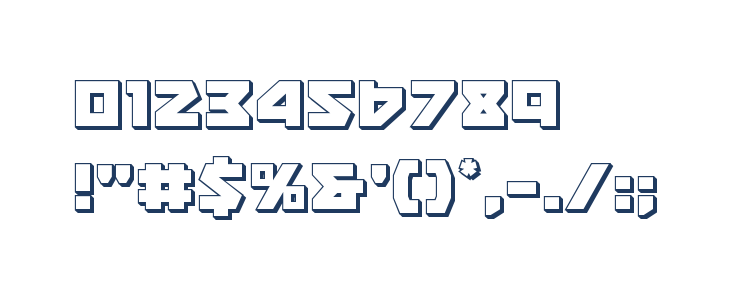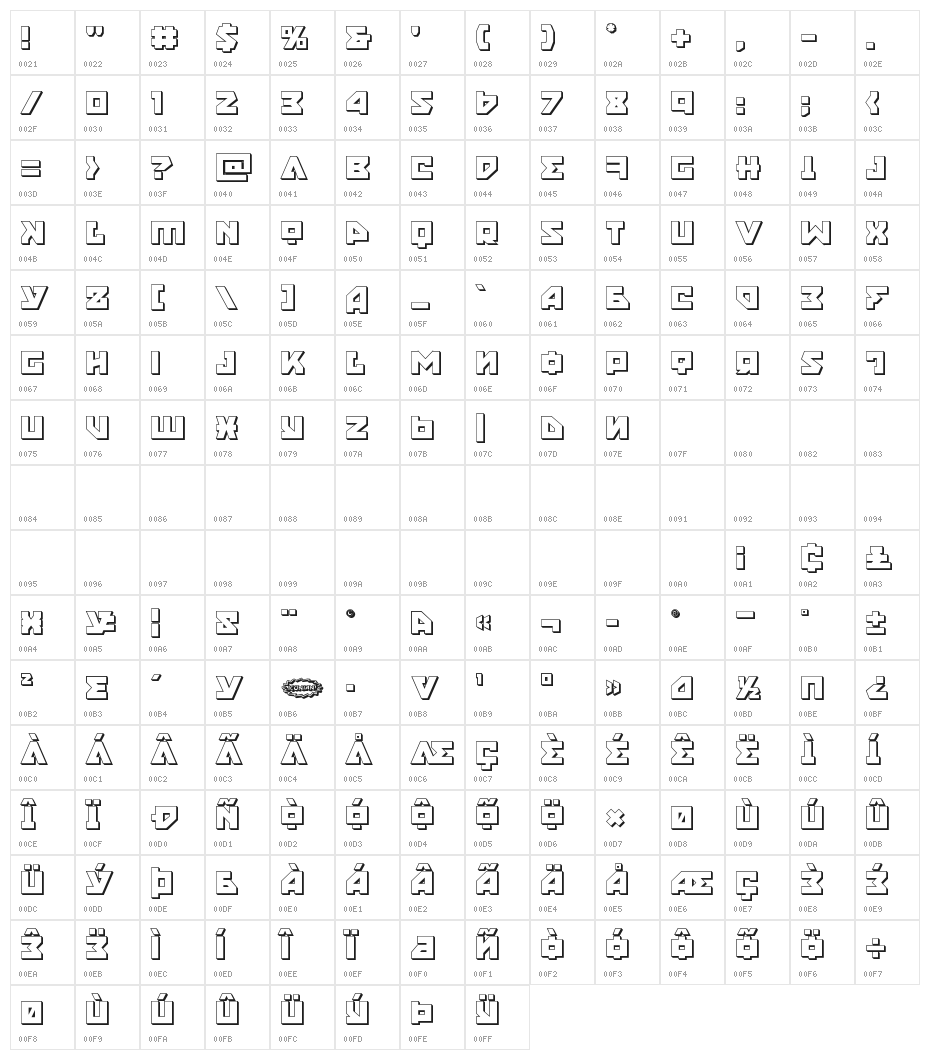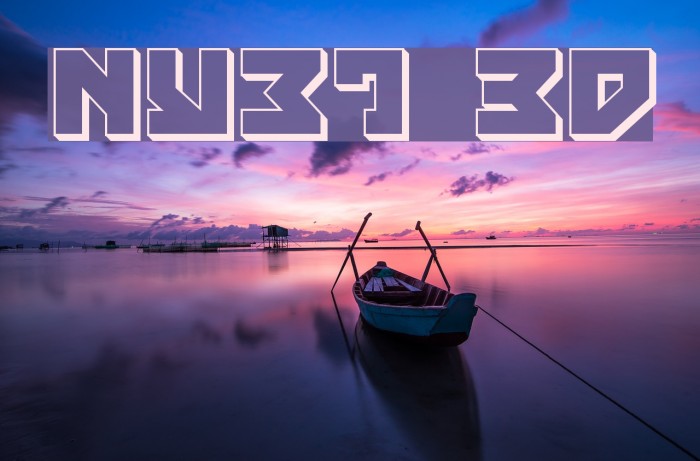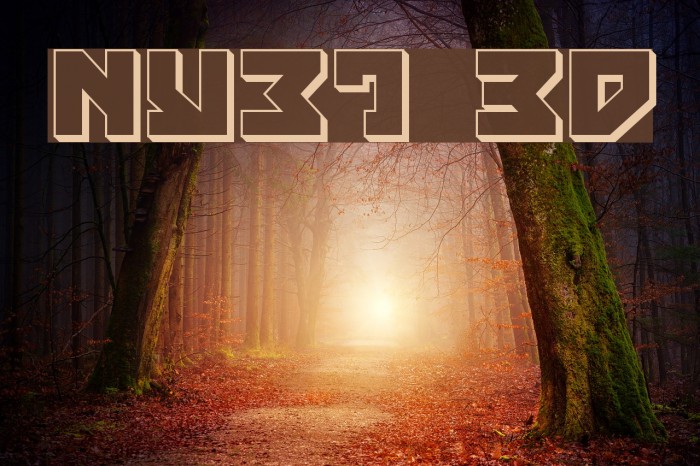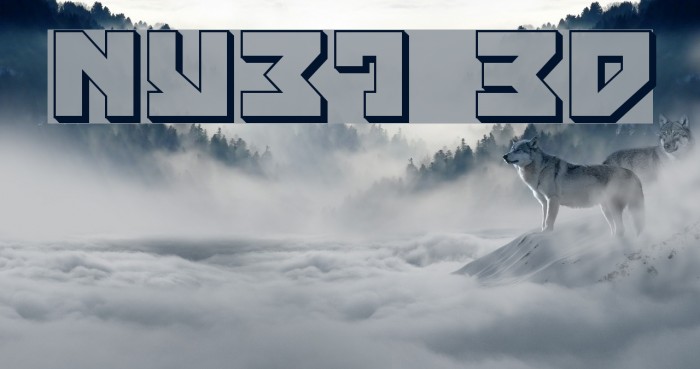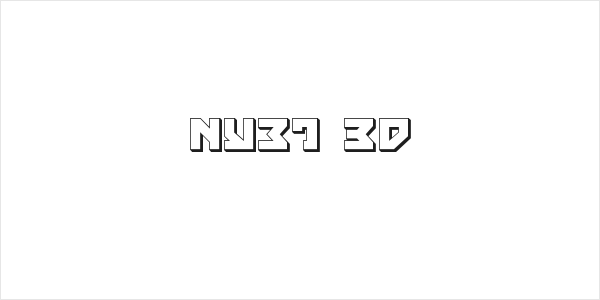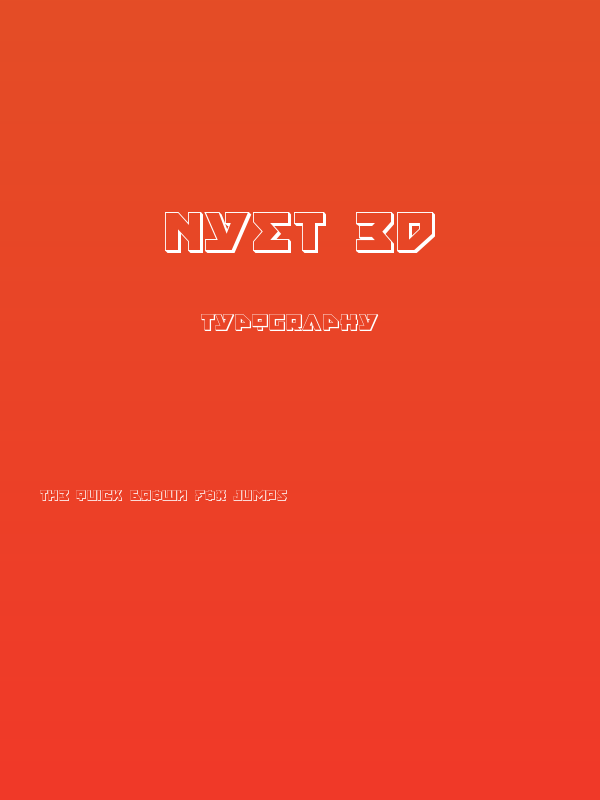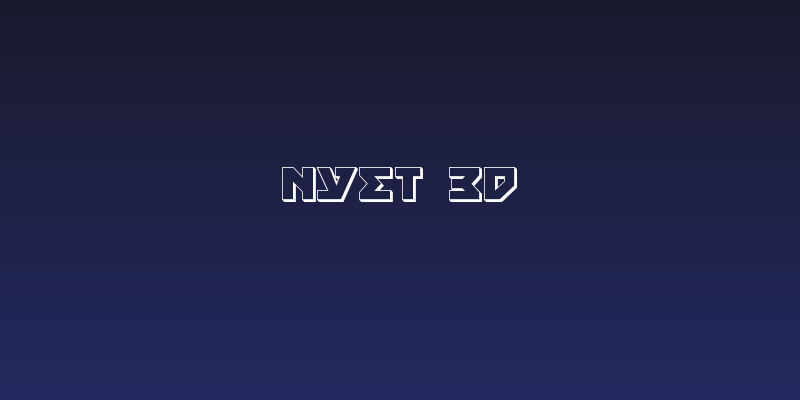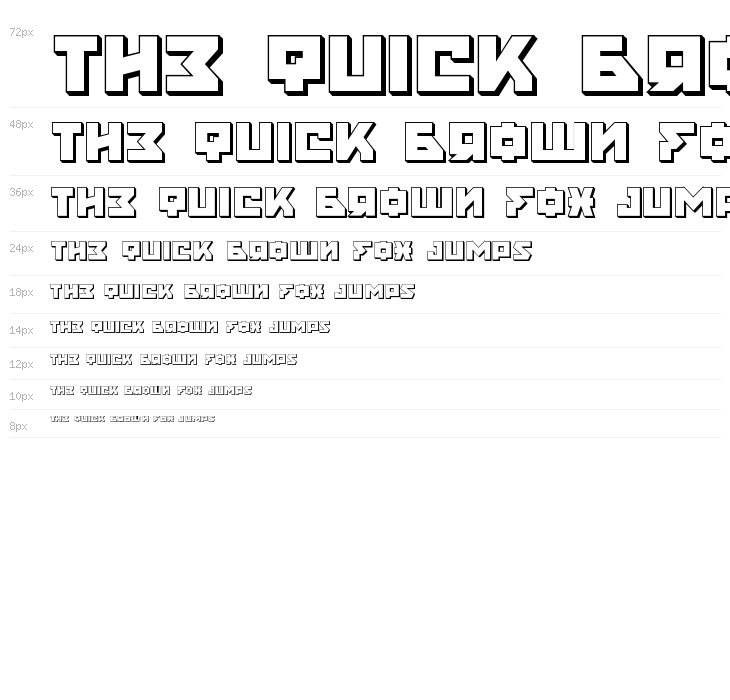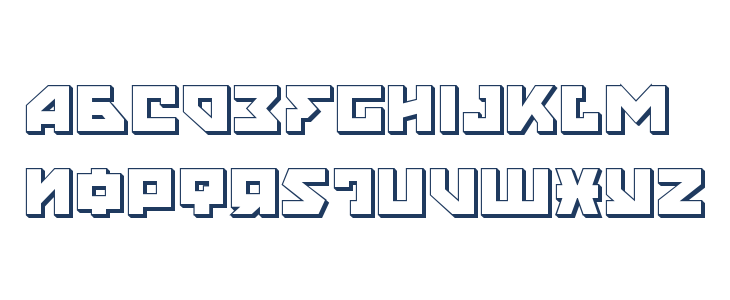
Nyet 3D Font
Nyet 3D Description
This font features a bold, geometric design with a three-dimensional effect, giving it a striking and modern appearance. The characters are constructed with sharp angles and thick lines, creating a sense of depth and solidity. The uppercase and lowercase letters maintain a consistent style, with the uppercase being more prominent and the lowercase slightly more compact. Numbers and special characters follow the same design principles, ensuring uniformity across all glyphs. The font's unique style makes it ideal for attention-grabbing headlines and titles.